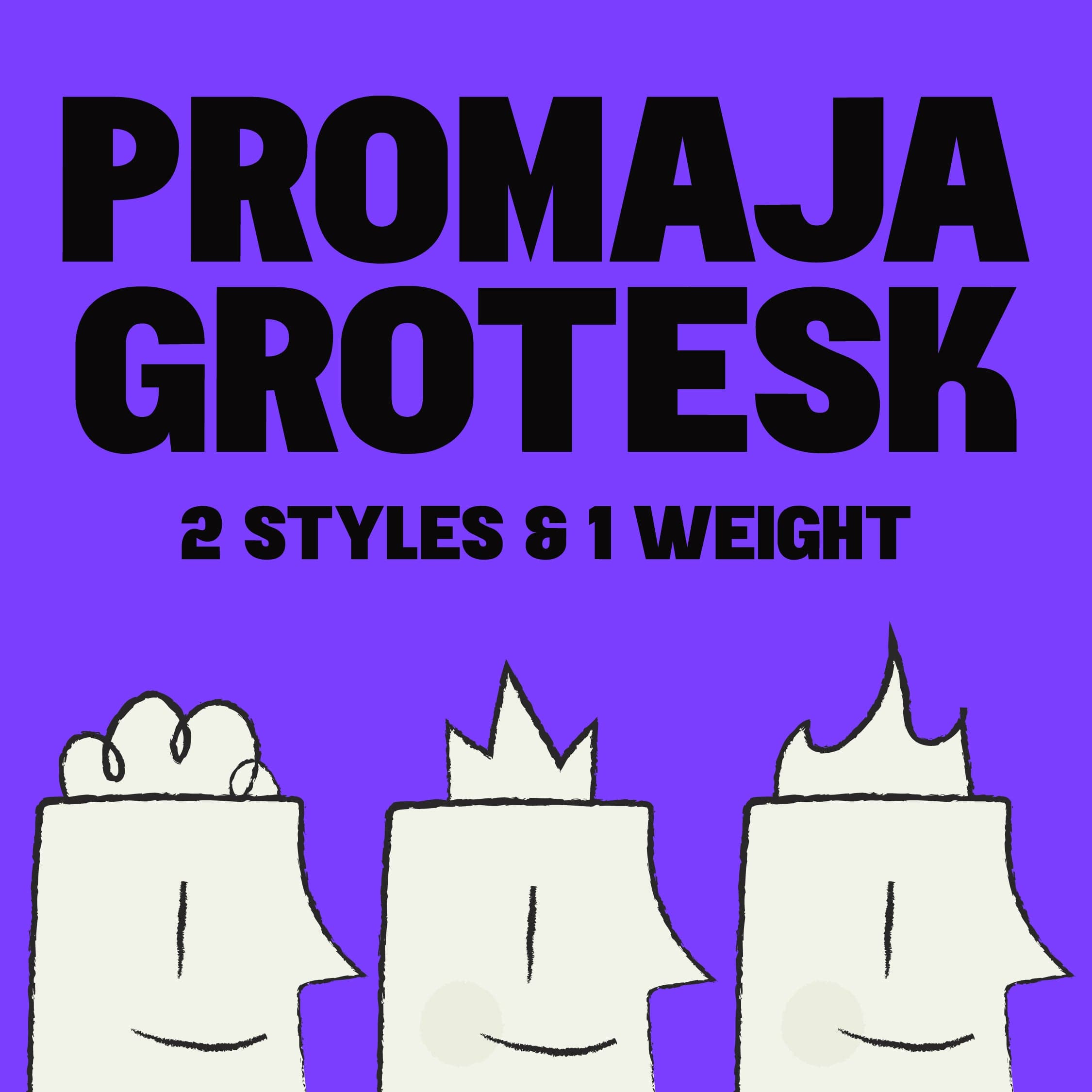
<p>Hey all! Say hi to our latest release, Promaja Grotesk.</p> <p>Promaja is a type that we've been working on for the past few months, inspired by irregular forms and mixed in different typographic styles. Something we always love to do and include in our types.</p> <p>Due to the nature of the type, we'd consider this more a display type but with experimentation being part of our daily lives, we expect this to be used anywhere possible. Big headlines, small paragraphs, coffee menus - you name the rest.</p> <p>A true Grotesk which is soft and sharp at the same time.</p> <p>Available in Regular & Italic & a little multilingual as usual.</p> <p>Enjoy! ☺</p>